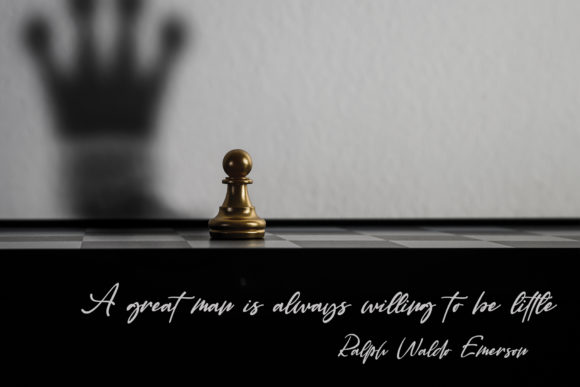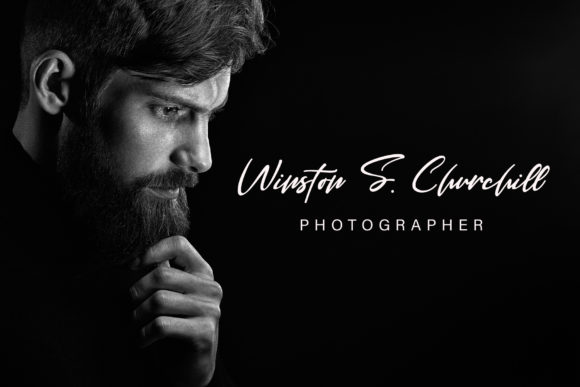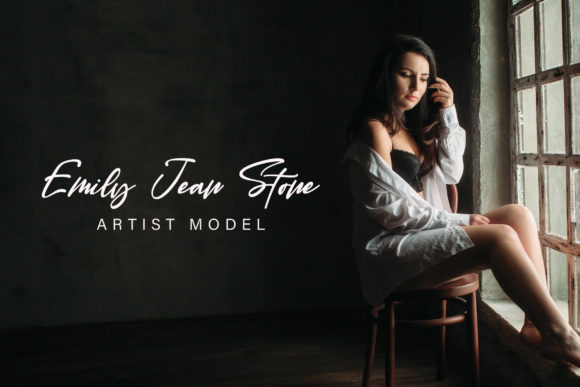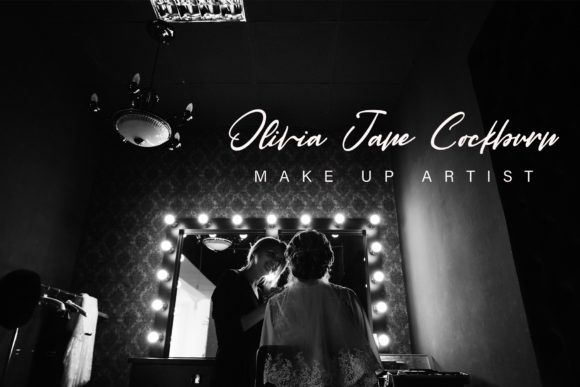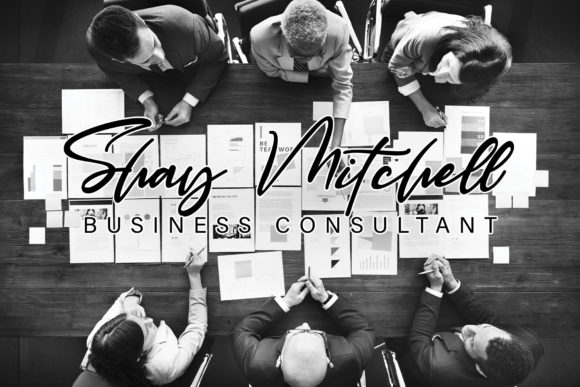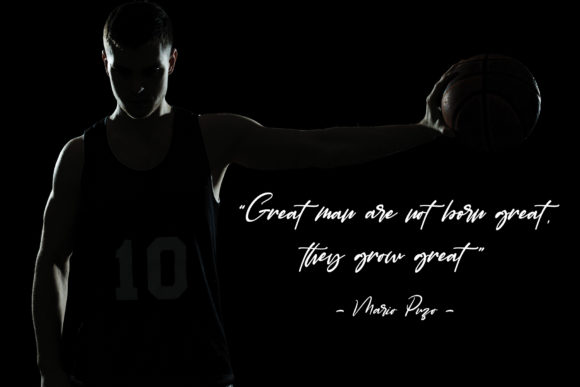
Discover the Unique Charm of Alexandroupoli Font
Are you tired of using the same old fonts in your designs? Look no further than the Alexandroupoli Font, a beautifully designed script with a modern style that’s sure to inspire. In this article, we’ll dive into the world of Alexandroupoli and explore its unique charm, features, and uses.
What is Alexandroupoli Font?
Alexandroupoli Font is a stunning script font that’s perfect for designers and crafters looking to add a touch of elegance and sophistication to their work. With its modern style and unique charm, Alexandroupoli is sure to make your designs stand out from the crowd.
Key Features of Alexandroupoli Font
- Modern Style: Alexandroupoli Font boasts a modern style that’s perfect for contemporary designs.
- Unique Charm: The font’s unique charm is sure to add a touch of personality to your designs.
- Script Style: Alexandroupoli is a script font, making it perfect for designs that require a touch of elegance and sophistication.
- Highly Readable: The font is highly readable, making it perfect for use in a variety of design applications.
Uses of Alexandroupoli Font
Alexandroupoli Font is a versatile font that can be used in a variety of design applications, including:
- Branding and Logo Design: Use Alexandroupoli to create stunning logos and brand identities that stand out from the crowd.
- Wedding and Event Design: The font’s elegant and sophisticated style makes it perfect for wedding and event designs.
- Packaging Design: Use Alexandroupoli to add a touch of elegance and sophistication to your packaging designs.
- Digital Design: The font is perfect for use in digital designs, including social media graphics, website headers, and more.
Tips for Using Alexandroupoli Font
Here are a few tips for using Alexandroupoli Font in your designs:
- Pair it with a Sans Serif Font: Pair Alexandroupoli with a sans serif font to create a stunning contrast.
- Use it as a Title Font: Use Alexandroupoli as a title font to add a touch of elegance and sophistication to your designs.
- Experiment with Colors: Experiment with different colors to find the perfect combination that complements the font.
In conclusion, Alexandroupoli Font is a beautifully designed script font with a modern style that’s sure to inspire. With its unique charm, highly readable design, and versatility, Alexandroupoli is perfect for designers and crafters looking to add a touch of elegance and sophistication to their work. So why not give it a try and see how it can elevate your designs?
Get Inspired by Alexandroupoli Font
Get ready to be inspired by the unique charm of Alexandroupoli Font. Take a look at some of the amazing designs created with Alexandroupoli and get ready to take your designs to the next level.